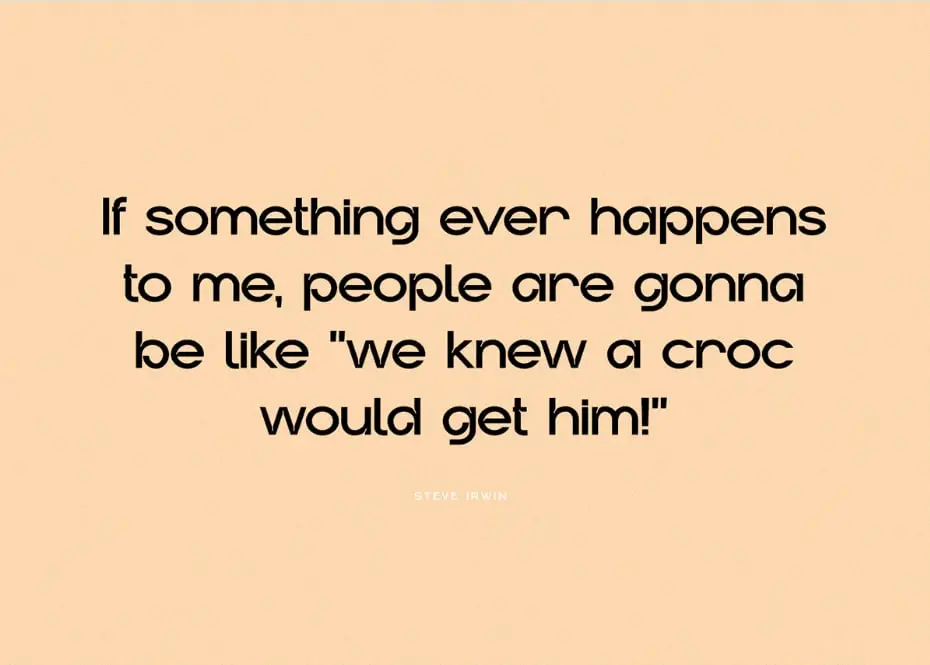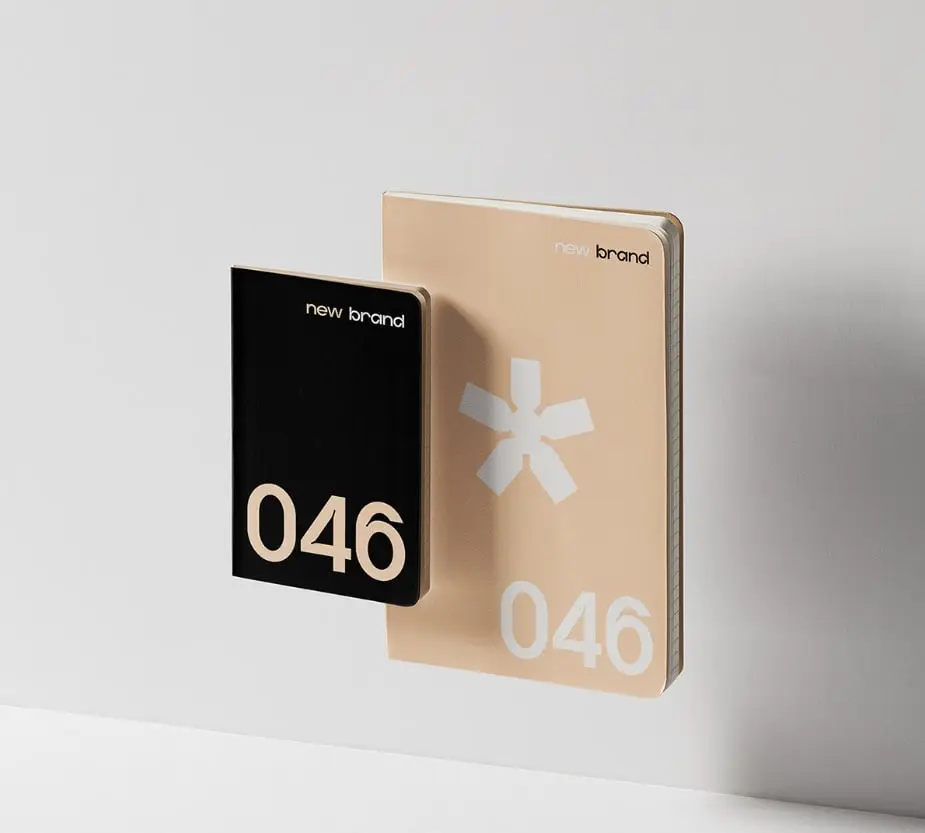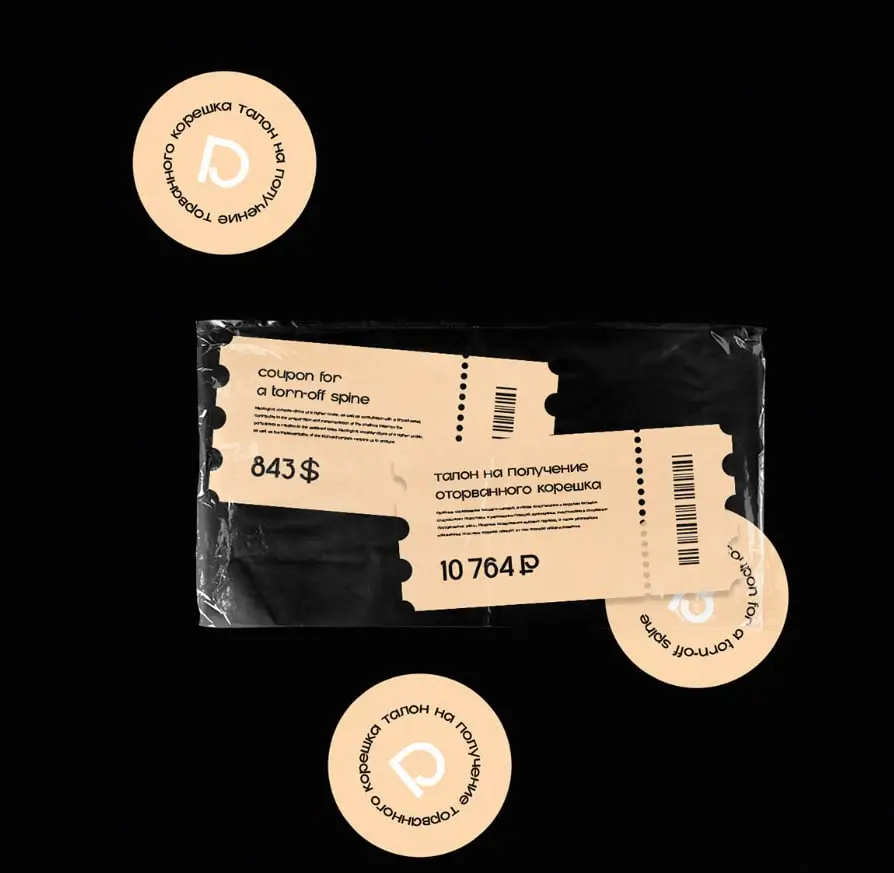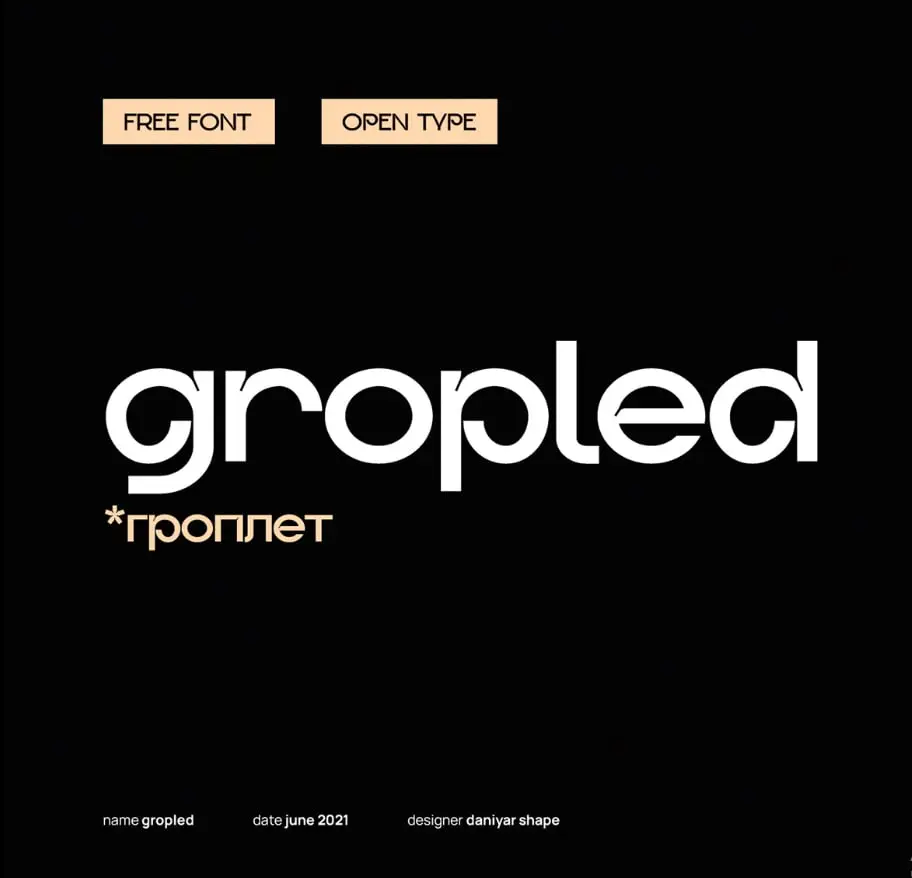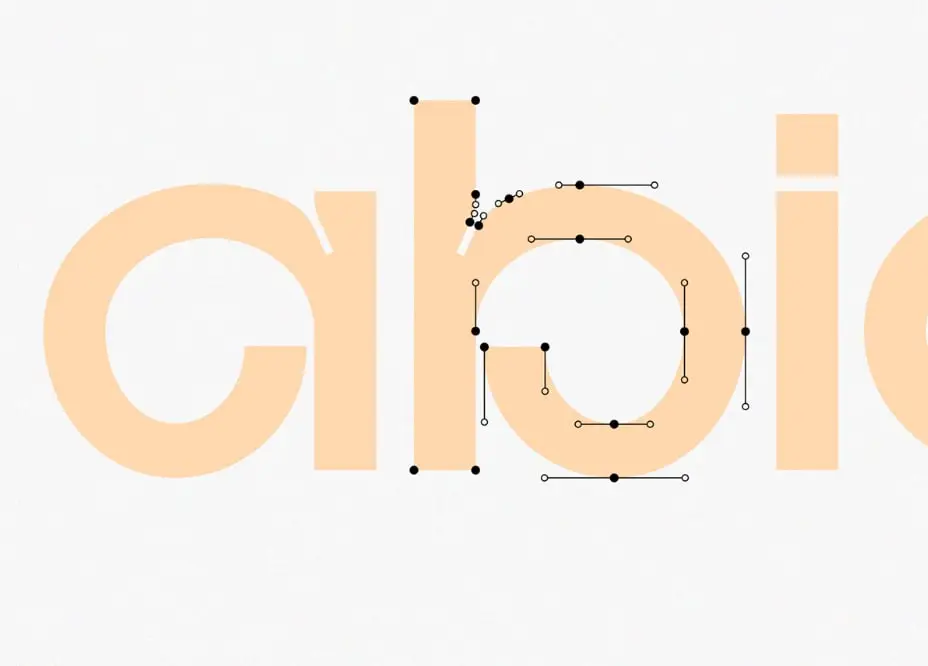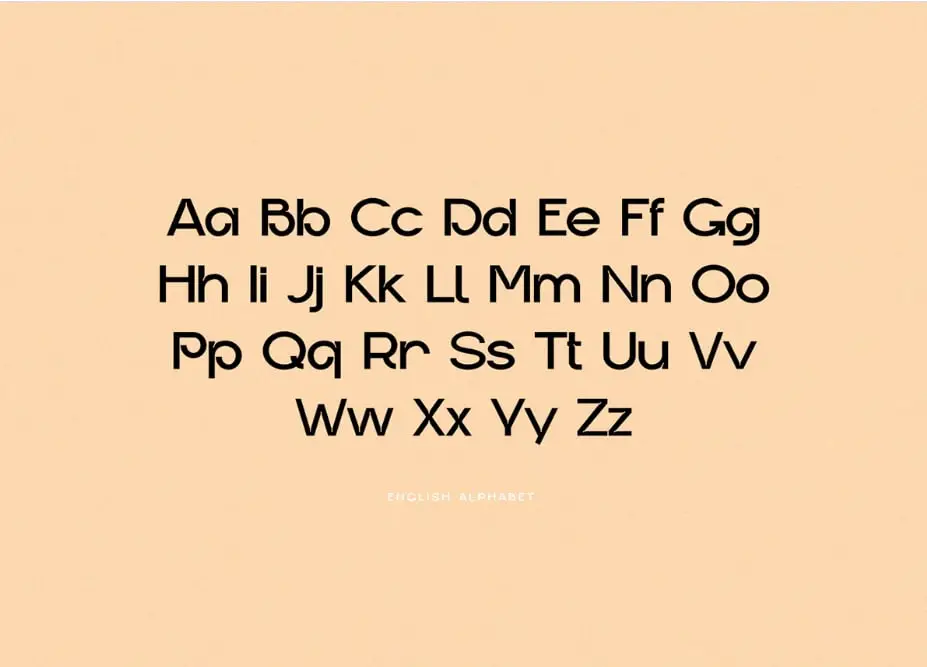
Gropled Font
The Gropled Font is a unique and versatile typeface designed to elevate your creative projects. With its distinctive style, it works beautifully for a variety of applications, including branding, logos, web design, print materials, and user interfaces.
• Styles: Available in multiple weights to suit different design needs.
• Ideal for creating eye-catching logos and branding materials.
• Perfect for web projects that require a modern and stylish touch.
• Great for print designs like posters, flyers, and business cards.